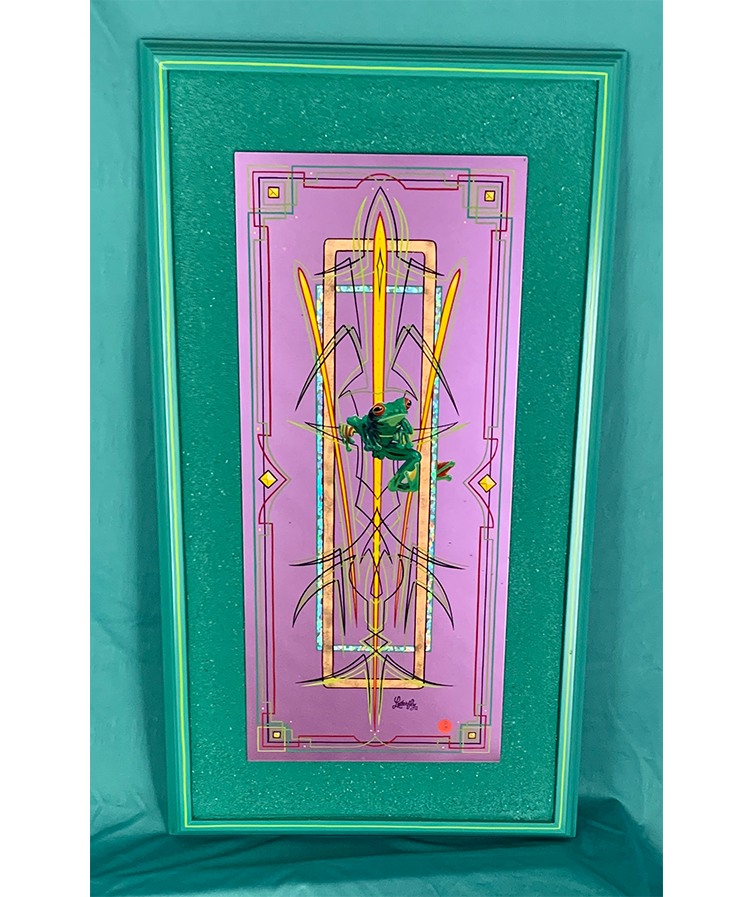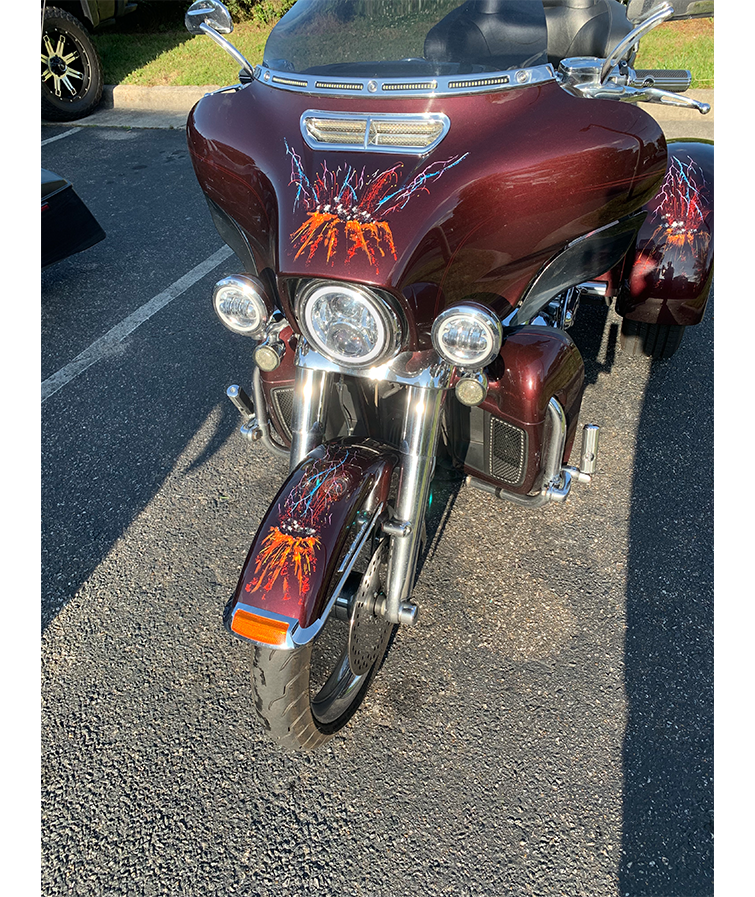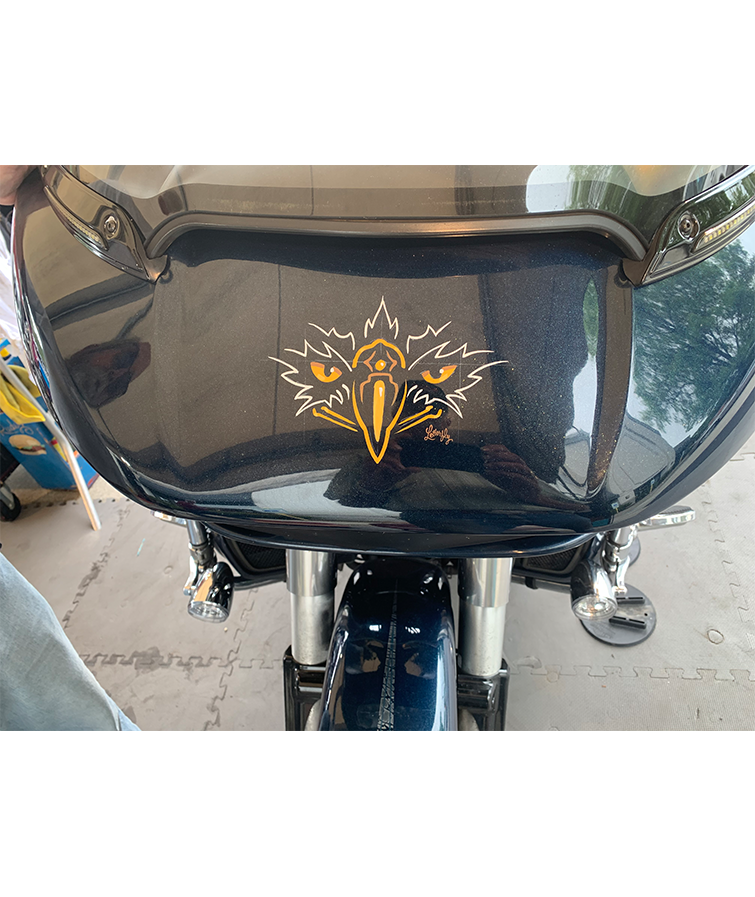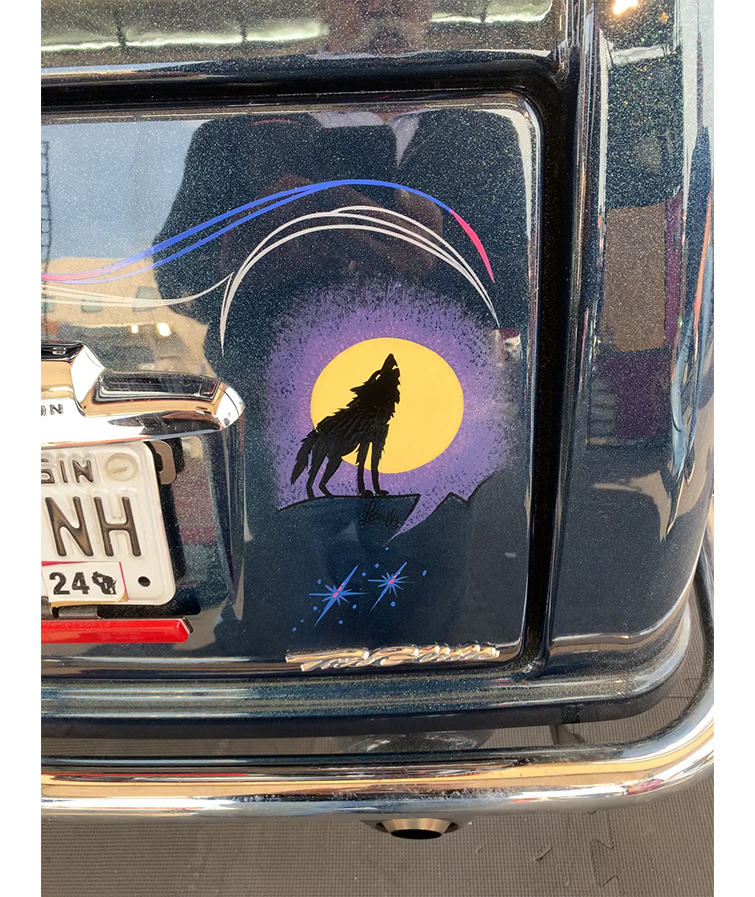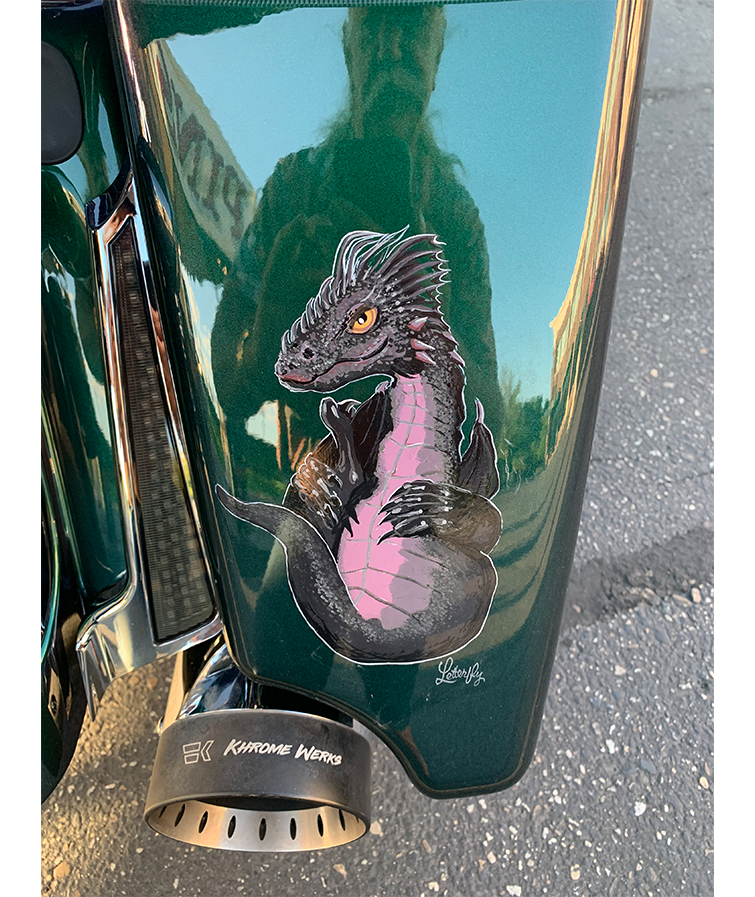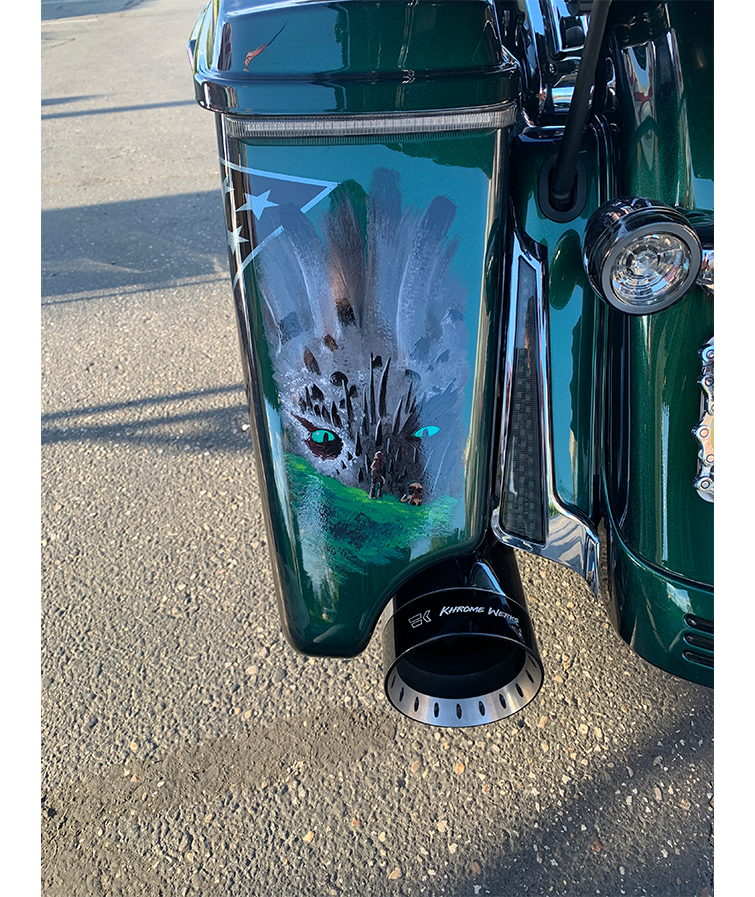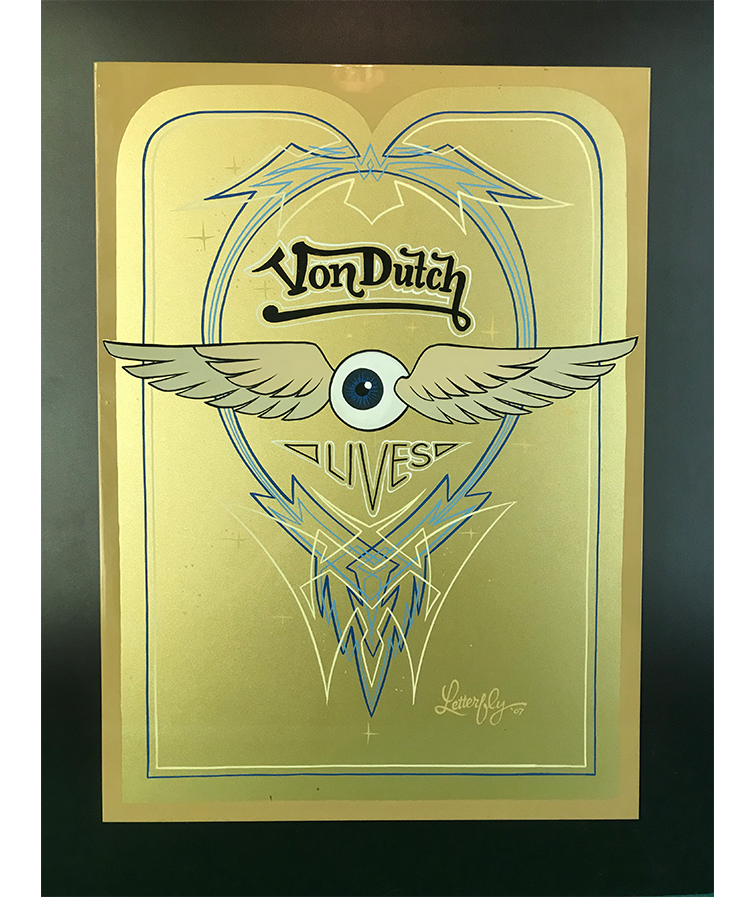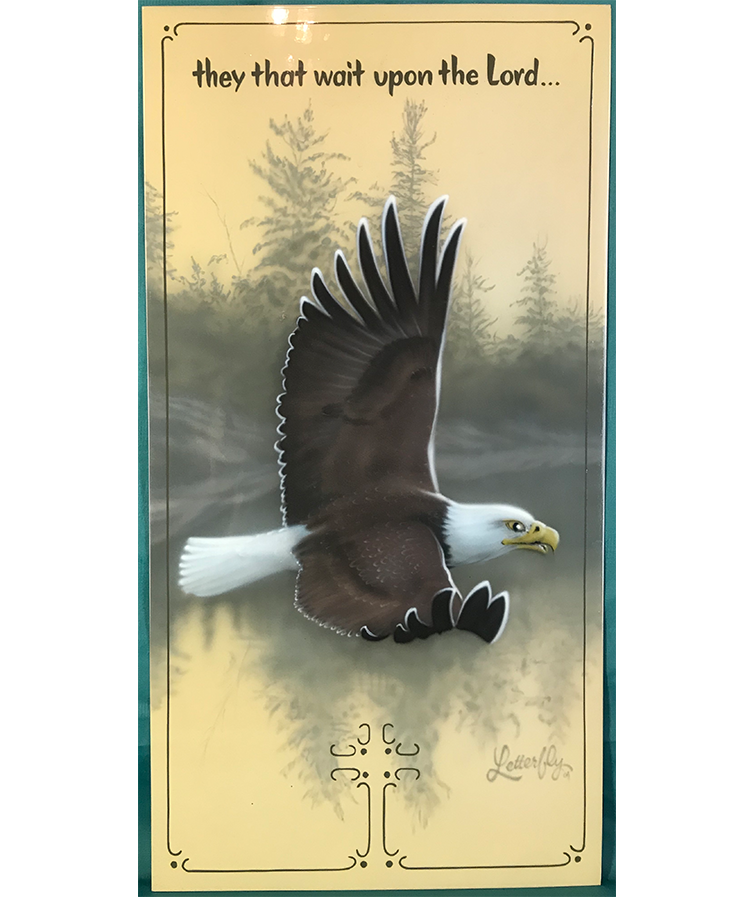
ARTIST
Letterfly creates art the old-fashioned way
by hand with paint. In addition to creating,
Airbrushed Murals, Gold Leaf Gilding,
Wet-Blended Pictorials and Hand-Lettering
all disappearing from the mainstream
Letterfly is in demand as…
AUTHOR
Have you ever pondered living a life filled with extensive travel, experienced the excitement of wondering what is around the next bend and became completely immersed doing fascinating things in faraway places? Have you witnessed…
SPEAKER
Have you experienced a heartwarming talk that made you laugh? Heard a concept that made you think twice, inspired a change to your life’s trajectory and then lifted your awareness to a new level? Have you heard a speech that…
Dave Letterfly Knoderer
“The smartest thing I ever did was join the circus!”
This decision launched a teenager into a prolific, itinerate and successful career on an old time, under canvas, three-ring circus in 1970. Dave Letterfly Knoderer first found expression as a show drummer accenting the efforts of the aerialists, performers and artistes, elevating the experience of the patrons in this fast-paced, uniquely American lifestyle. He also satisfied an emerging creative tendency by painting huge signs, wild animal depictions and festive artwork on the fleet.
While drumming, Dave became fascinated with the performing animals in the show. Becoming familiar with this unique artform, he found affinity with horses while learning about multiple animal liberty horse presentations. He later gravitated toward other disciplines of classic horsemanship developing a passion for “Haute E’cole,” meaning high school, (or horse schooled to the highest level). Being part of this distinct entertainment experience provided skills that morphed into his relentless appetite for creativity, fun and adventure that continues to this day.
As an apprentice to the sign painting and design trade, he sought sensational challenges that led to many amazing projects. A skilled painter, Dave designed and painted large wall graphics and theater sets, themed interior and exterior murals in amusement parks, crafted delicate gold leaf gilding and decoration on Antique Fire Trucks, hand lettered signage and scenery on carnival midways, and award-winning gilded window treatments and storefront décor.
As levels of finesse were accomplished with his equine dance partners, parallel developments showed up in the pinstriping, airbrushing and graphic work that financed his quest as a performing horseman. As the evolution of entertainment grew to exclude horses, the demand for his unique style of artwork expanded. Travel to serve a growing list of clients remained one of the constants in his life.
Letterfly clearly qualifies as an old school/renaissance man with a command of design layout formulas, intimacy with letterform, old school pinstriping, and both wet-blended and airbrushed pictorial painting. As his skills with the brush developed, he could not disregard his penchant for adventure.
As sign making began to go the way of the computer over four decades ago, Letterfly found a niche airbrushing high-quality murals on the backs of motor homes. After nine solid years of chasing the work, he became the resident artist at the largest RV dealership in the country.
One project, an eagle flying over snowcapped mountains, was for a Harley-Davidson motorcycle store owner who soon after, also commissioned murals inside and out at his motorcycle dealership. That episode led to other similar projects during the building boom of those retail facilities. While in the proximity of bikers it became impossible for Dave to avoid the relentless requests for delicate pinline designs that personalize, individualize and distinguish their bike from the rest.
Today “Have brush will travel” is the top producer of old school pinstriping, traditional brush-painted pin-up girls, pictorials, hand-painted lettering, gold leaf inscriptions, pet portrayals, portraits and custom images of all kinds on motorcycles, hot rods, guitars, cake mixers, and other modes of moving fast at customer-dedicated Harley-Davidson motorcycle dealerships between Philadelphia and Chicago each summer. The Letterfly Pinstriping route is posted on a blog; Travelog.Letterfly.com so you can find out when the artist is going to be near you.
Perhaps the most amazing feature of this artist is his uncanny ability to visualize, develop and create images that have never been done before, along with the wide variety of styles of pinline designs, his oneness with eagles, wolves, horses, feathers, flames, military logos and countless other icons that make up the mainstay of his work.
The delicate nature of the hand painted pinline design is the result of years of practice and developing finesse with the ungainly, specialized brush. The creation of each motif is an exercise in good-natured meditation where the process becomes like play and the artist opens himself up to possibilities as each stroke occurs, only to discover the visual destination as the last connecting stroke is made.